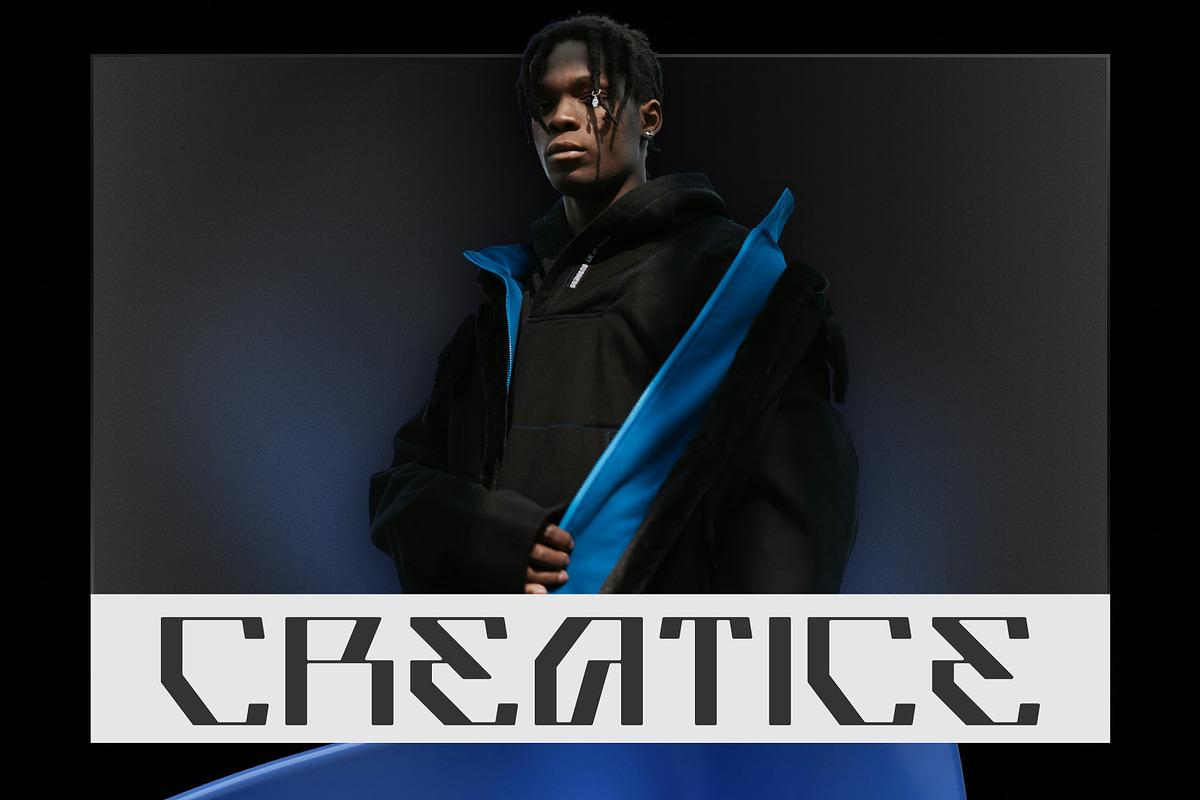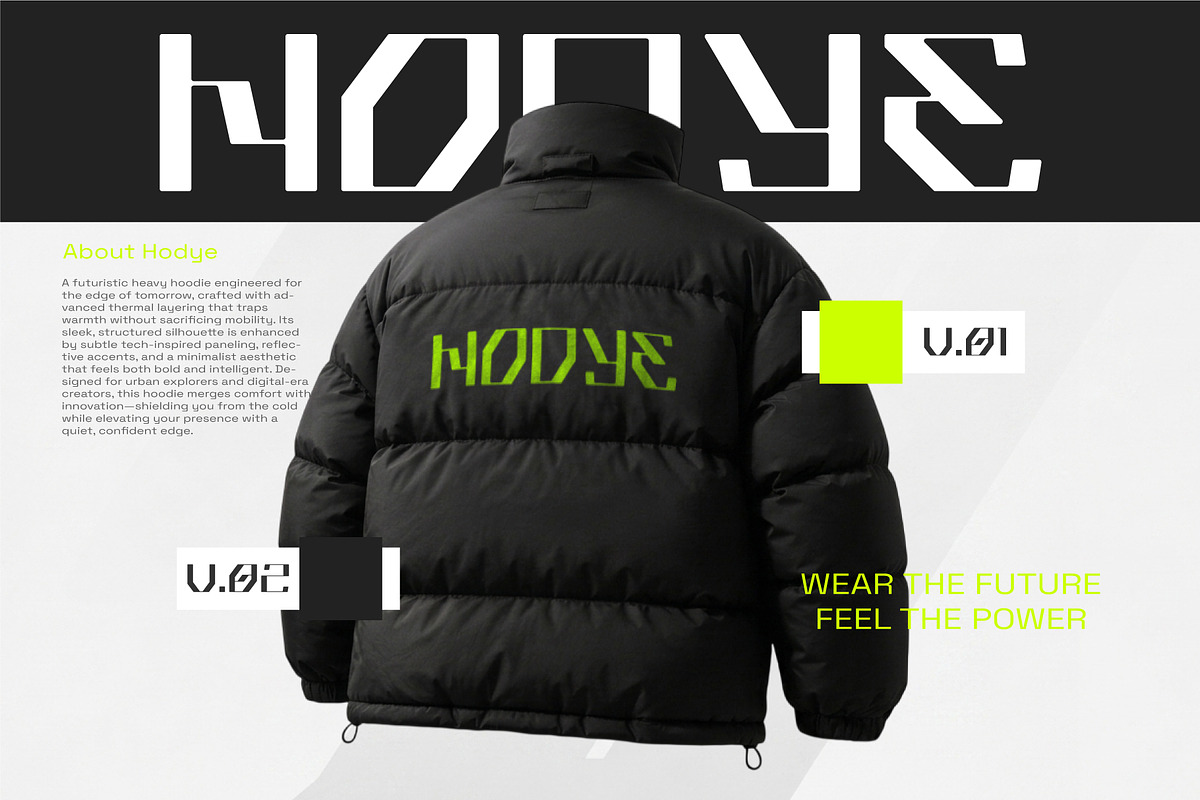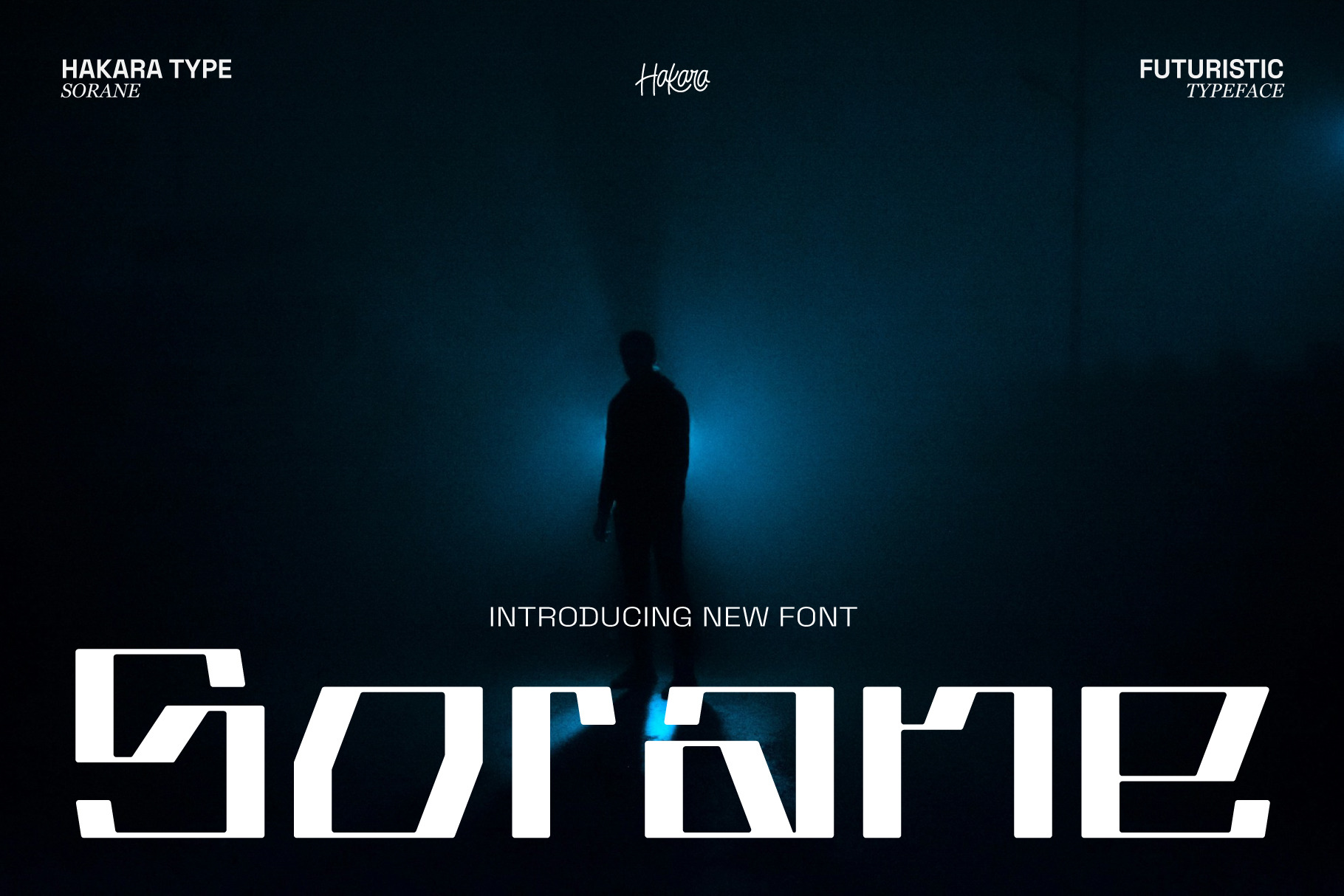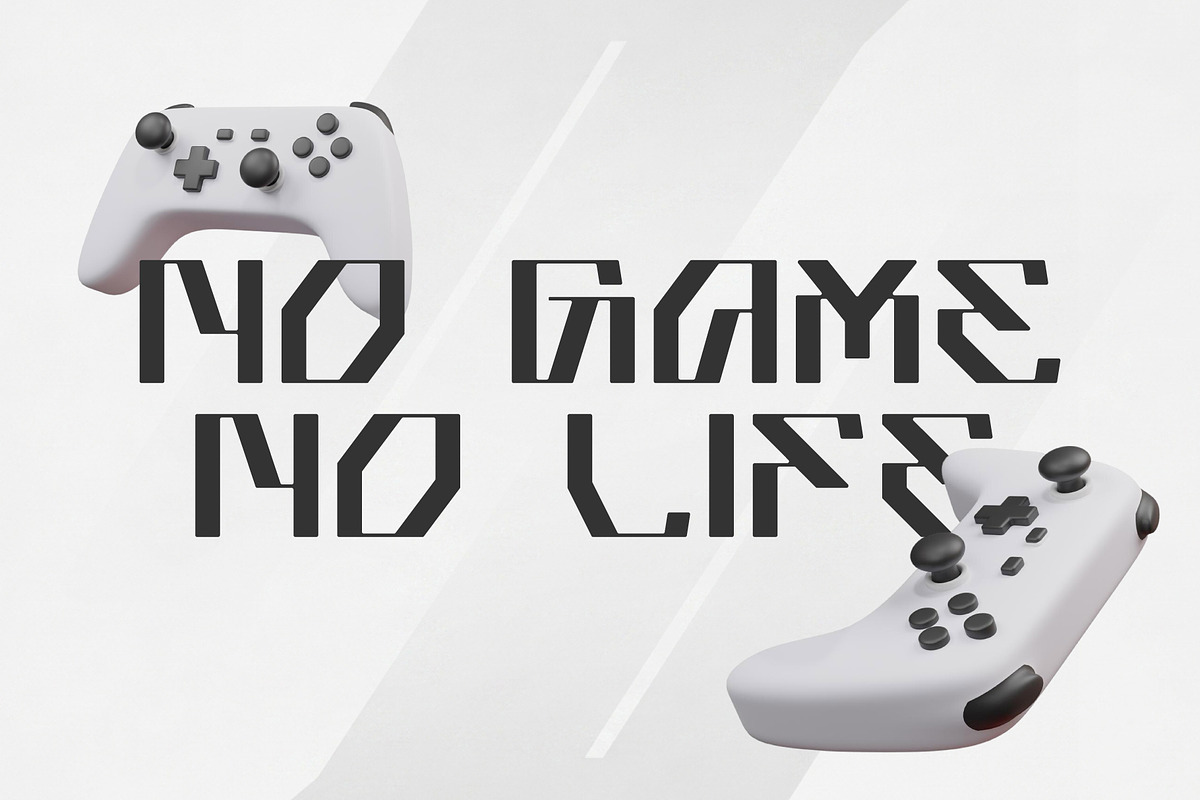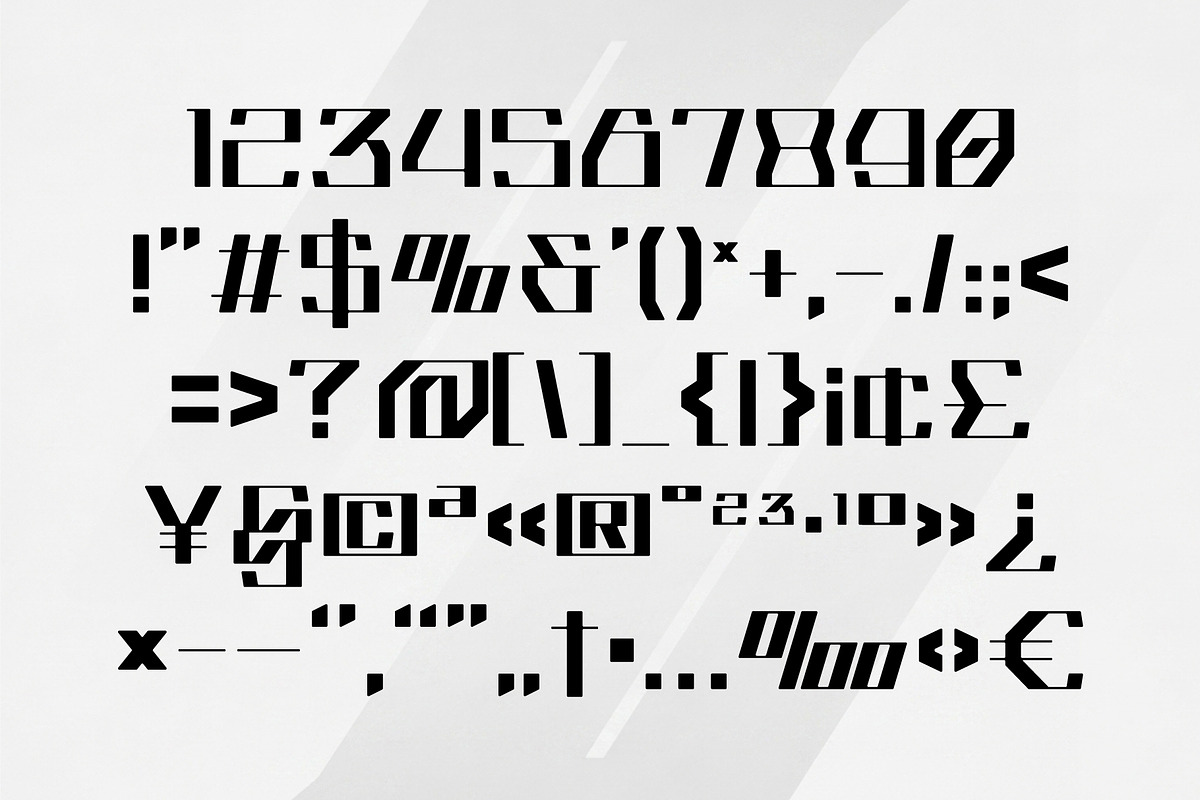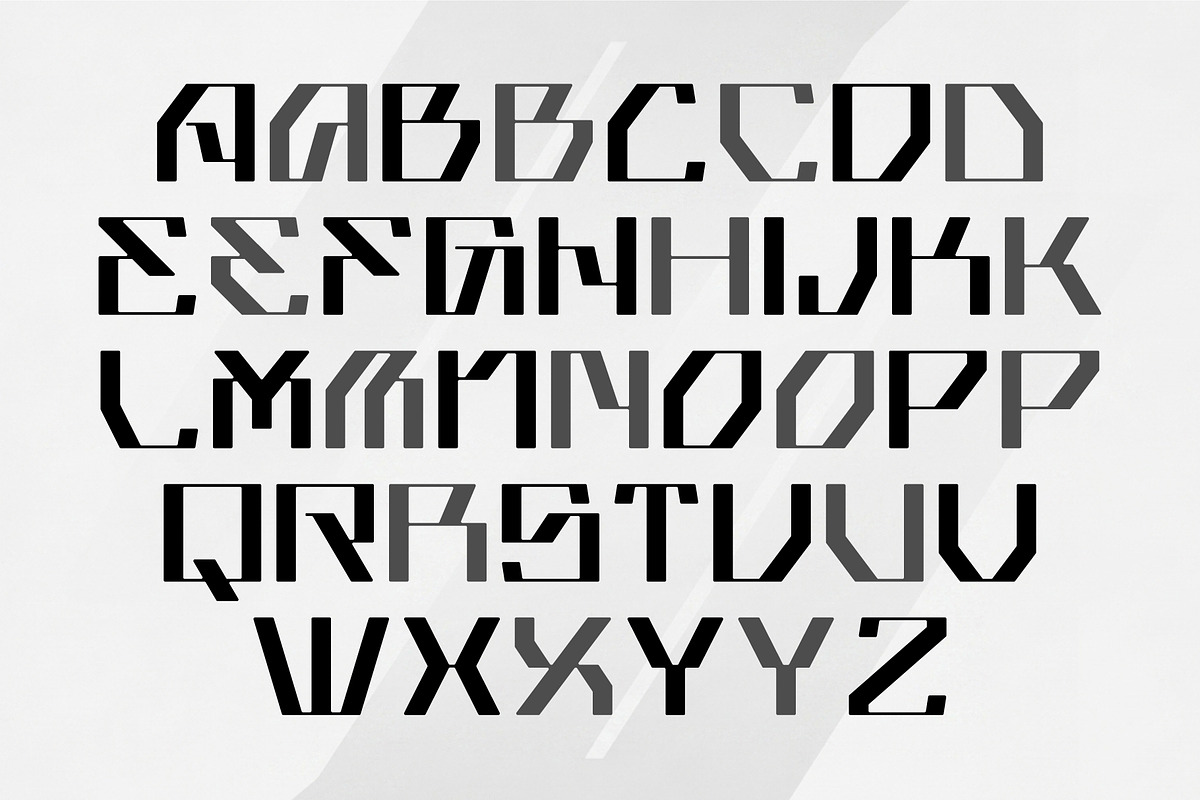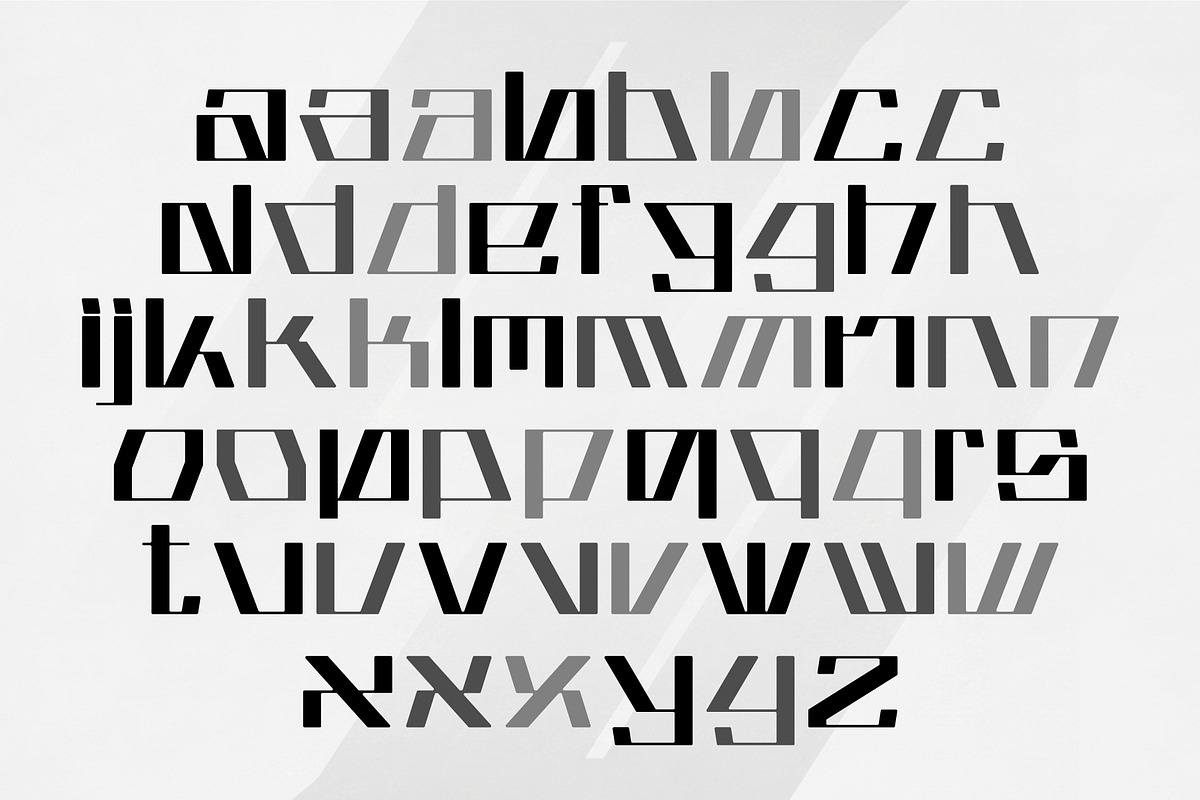
Sorane - Cyber Sci-Fi Display Font
Sorane is a bold futuristic display typeface that explores sharp geometry, angular cuts, and experimental forms. Designed with a cyber-inspired aesthetic, Sorane blends sci-fi visuals with modern typography, creating a striking and unconventional look.
Each letterform is crafted with unique structural details, making it perfect for projects that demand attention and a strong visual identity. From tech branding to futuristic posters, Sorane delivers a cutting-edge feel that stands out in any composition.
Ideal for headlines, logos, posters, album covers, gaming visuals, and digital interfaces, Sorane brings a distinctive futuristic energy to your design.
Built for designers who want to push boundaries, Sorane embraces asymmetry, fragmented shapes, and bold contrasts to create a dynamic visual rhythm. Its unconventional construction gives every word a sense of motion and innovation, making it highly suitable for experimental layouts and forward-thinking concepts.
Whether used in digital or print media, Sorane maintains its strong presence and readability at larger sizes, ensuring maximum impact. It pairs exceptionally well with minimal layouts, dark themes, and high-contrast color palettes, allowing the typography to take center stage.
With its unique personality and futuristic character, Sorane is more than just a font—it’s a visual statement for the future.